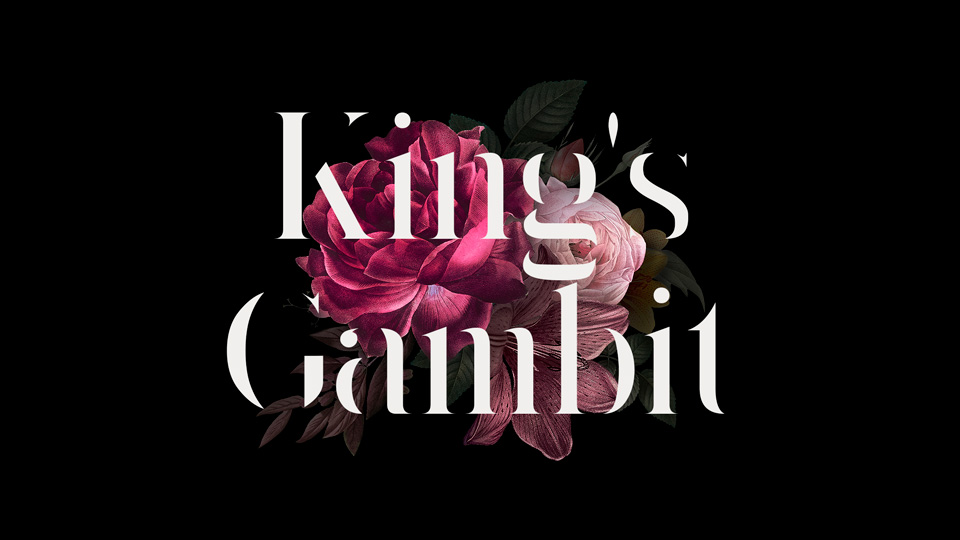
Download King’s Gambit font, a beautiful serif font drew just the thick parts of a serifed font. Since the thick parts are all your eye actually sees when reading, this font is pretty readable despite being fairly insubstantial.
Designer: Matthew Welch